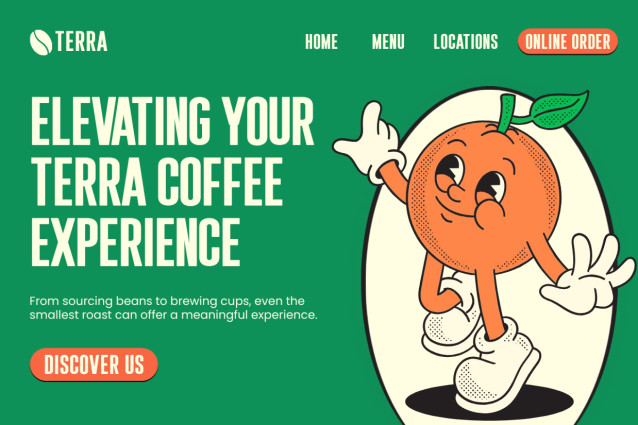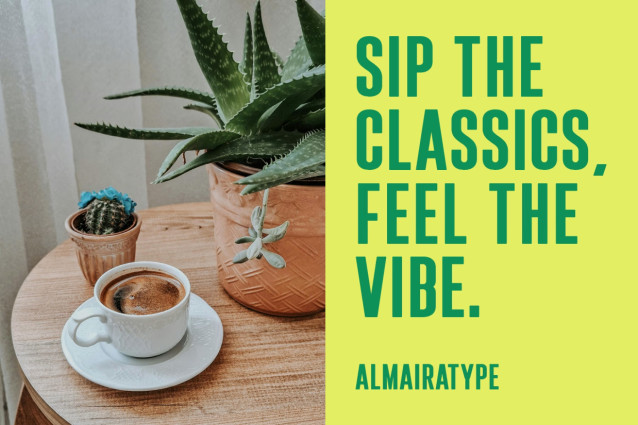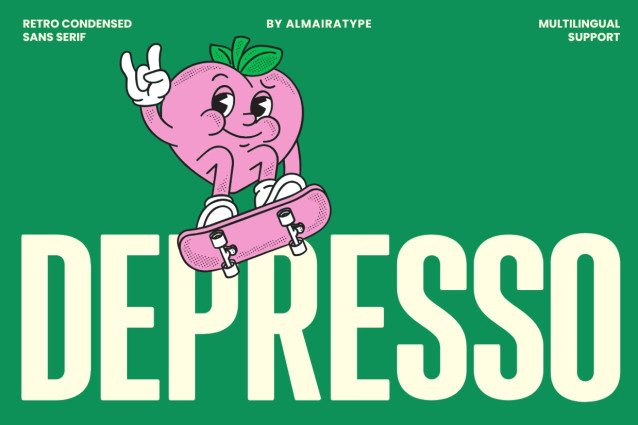
Depresso Font
Depresso is a retro condensed sans serif font meticulously designed to bring a delightful vintage warmth and high-impact aesthetic to your modern creative projects. Featuring a tall condensed structural anatomy with a solid display weight, cool skateboarding character mascot, and smoothly rounded geometric contours, this typeface beautifully bridges the gap between classic 70s nostalgia and contemporary commercial design trends.
It stands out as an exceptional choice for professional graphic designers, independent clothing brands, custom apparel makers, passionate craft lovers, and Print on Demand (POD) entrepreneurs looking to create high-converting merchandise items. Whether you are building an eye-catching brand identity, designing trendy varsity or streetwear t-shirt lines, customizing unique product packaging layouts, or producing striking social media posters, Depresso ensures maximum readability and a distinct professional edge.
Its ultra-clean vector outlines guarantee full technical compatibility with popular craft cutting software and digital vinyl plotters like Cricut and Silhouette, offering a flawless, hassle-free weeding experience for personalized stickers, mugs, and DIY craft projects. Elevate your commercial branding toolkits and artistic design portfolios with the inviting, powerful, and versatile character of the Depresso typeface.